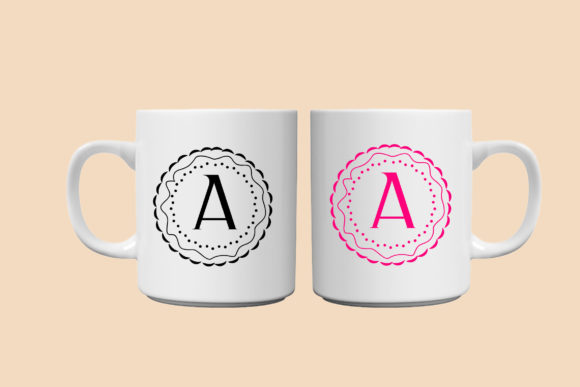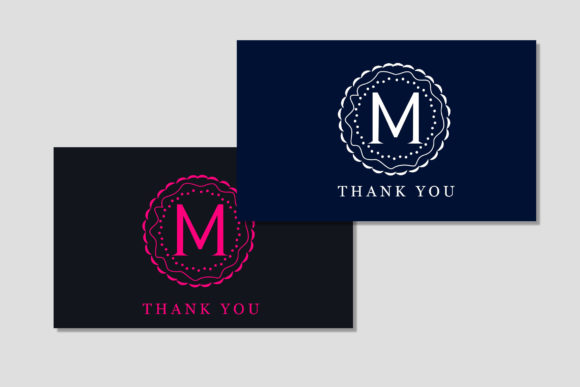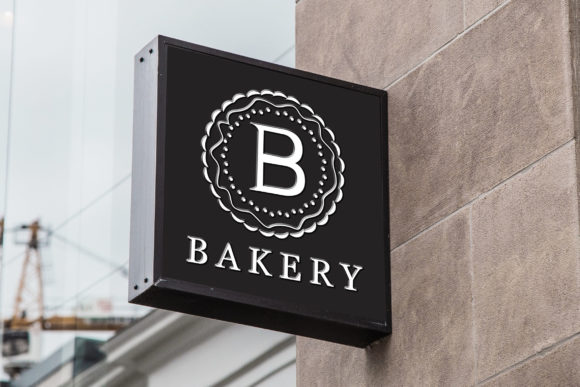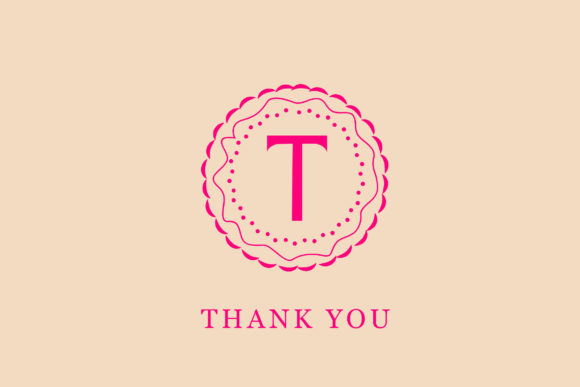
Introduction to Monogram Art Font
Have you ever found yourself scribbling out love letters, wedding invitations, or other heartfelt messages, only to be interrupted by a moment of creative frustration? You’ve got the perfect idea, but the right words and fonts just seem to be missing. This is where the Monogram Art Font comes in – a dainty and unique decorative font that adds a touch of romance to any design.
Whether you’re a seasoned graphic designer or a hobbyist with a passion for creative projects, this high-quality font is a valuable resource that can elevate your designs to the next level. With its transparent background and intricate details, the Monogram Art Font is the perfect design resource for adding a personal touch to your work.
Key Features of Monogram Art Font
- Unique, high-quality monogram designs for creative projects
- Comes with a transparent background, allowing for easy customization and blending with other design elements
- High-resolution designs (300 DPI) for crisp and clear visuals, ideal for printing or digital use
- Perfect for creating custom invitations, logos, and other design elements that require a personal touch
- Can be easily resized without losing quality, making it a versatile design element for various creative projects
Honest Review: Monogram Art Font
As a designer, I’m always on the lookout for high-quality design resources that can elevate my creative projects. Recently, I had the chance to work with the Monogram Art Font, and I must say, it’s been a game-changer.
- ✨ Elegant and sophisticated design aesthetic that adds a touch of luxury to any project
- ✨ Highly customizable with a range of font sizes, colors, and styles
- ✨ Transparent background, making it easy to layer with other design elements
- ⚠️ Limited character set, which can be a challenge for longer text-based projects
- ⚠️ Not suitable for projects that require a lot of bold or italic text
Overall, I’m really impressed with the Monogram Art Font. It’s a great addition to any designer’s toolkit, and I appreciate that it’s available as a free download. With a little creativity, you can achieve some truly stunning results with this font.
Tips for Getting the Most Out of Monogram Art Font
Use Monogram Art Font as a design resource for your next creative project. Experiment with different font sizes, colors, and styles to create a unique look. You can also combine Monogram Art Font with other design elements to create a high-quality design.
Monogram Art Font is a versatile design resource that can be used in various contexts, such as branding, invitations, and social media graphics. Its transparent background makes it easy to overlay on top of images or other design elements.